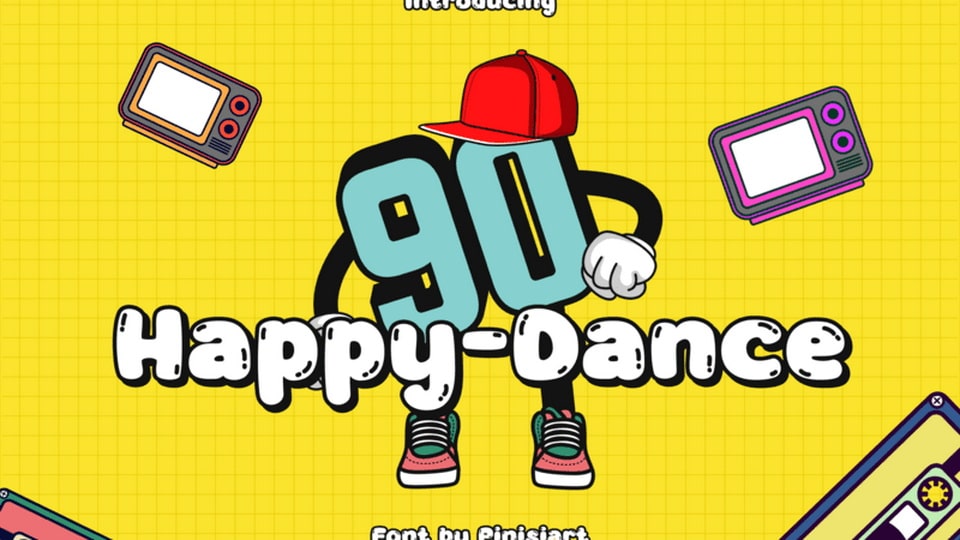
Download Happy Dance font, a Pop Art display typeface. Disco vibes, are fun, bold, blobby, and give a huge impact on the projects you’re working on. Happy Dance is rocking the pop art style in its own way.